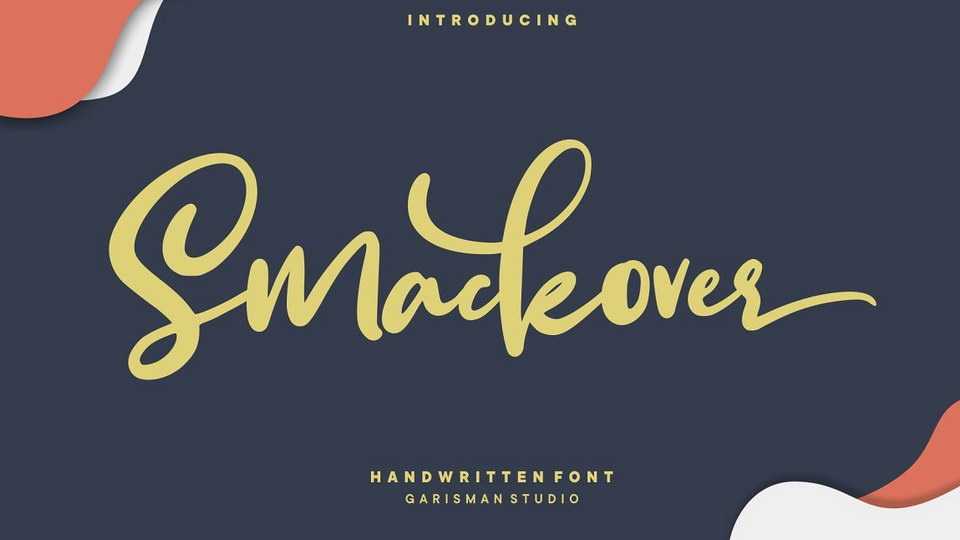
Download Smackover font, a natural handwritten script with a pretty ending swashes. Smackover script is great for everyday designs, notes, quotes social media posts, t-shirts, packaging and more.
Designer: Garisman Studio